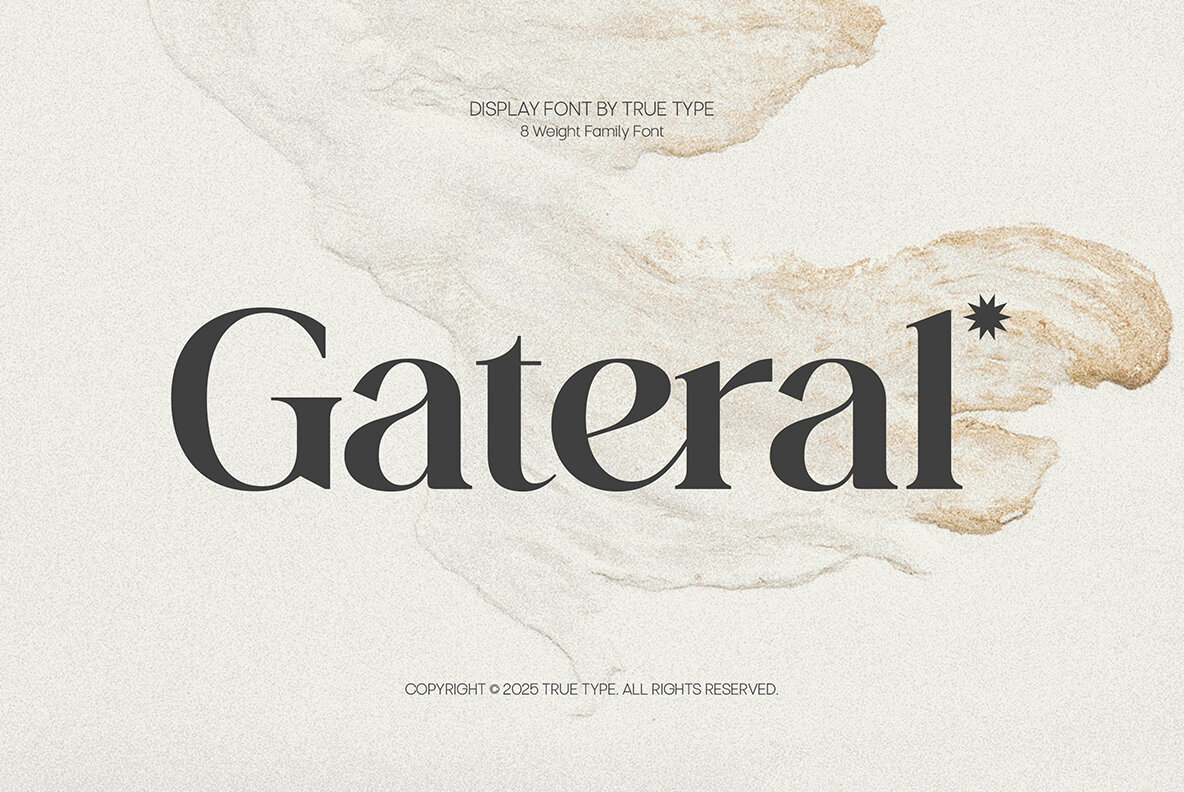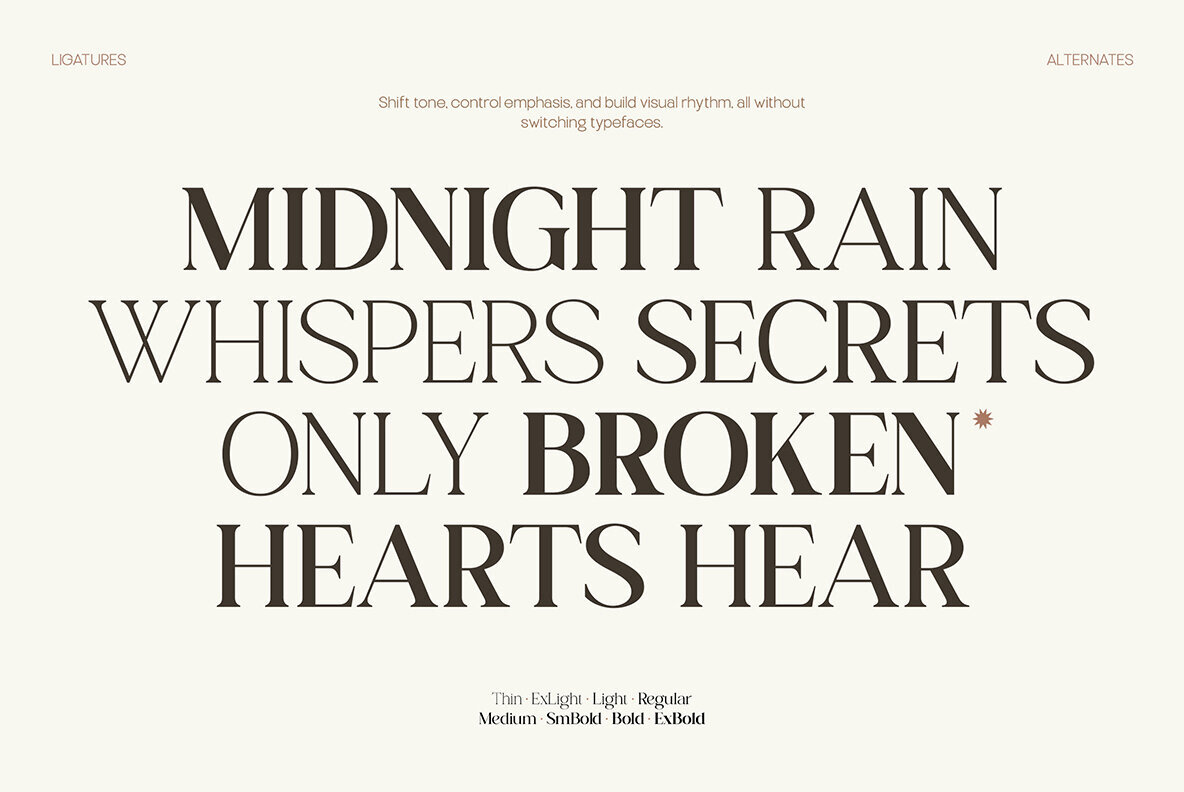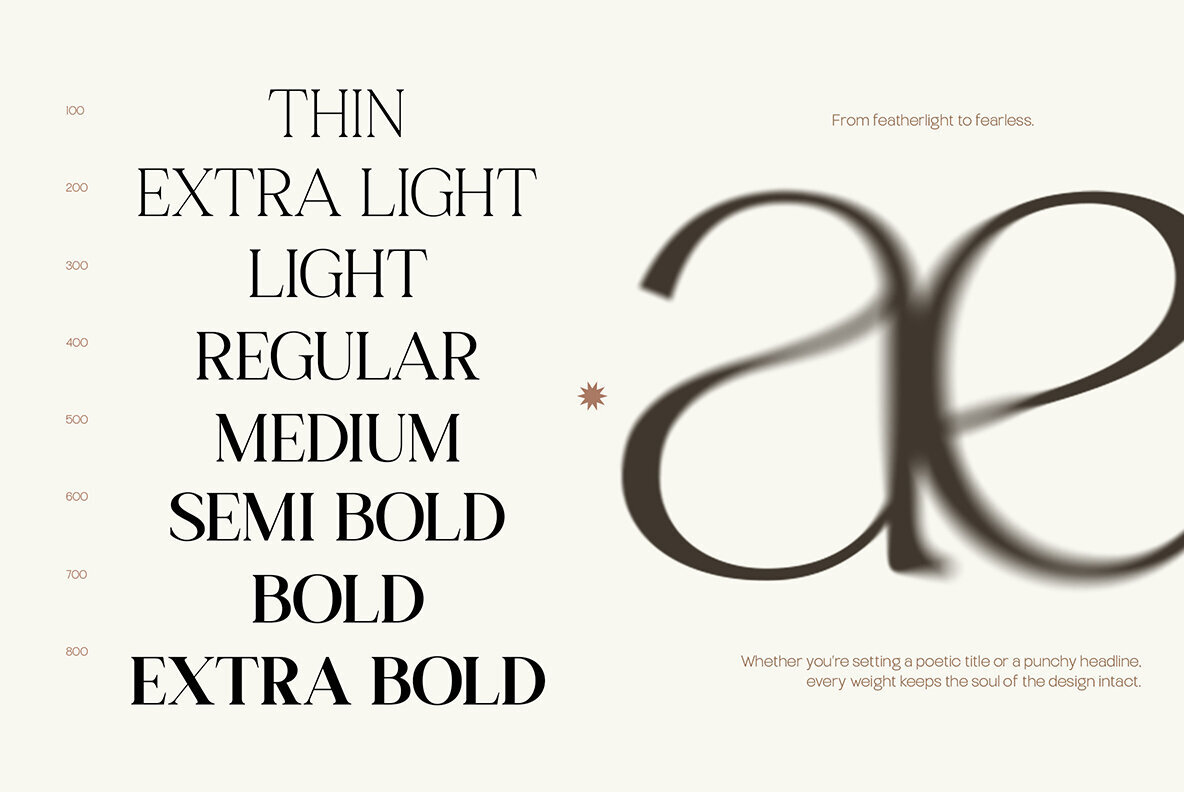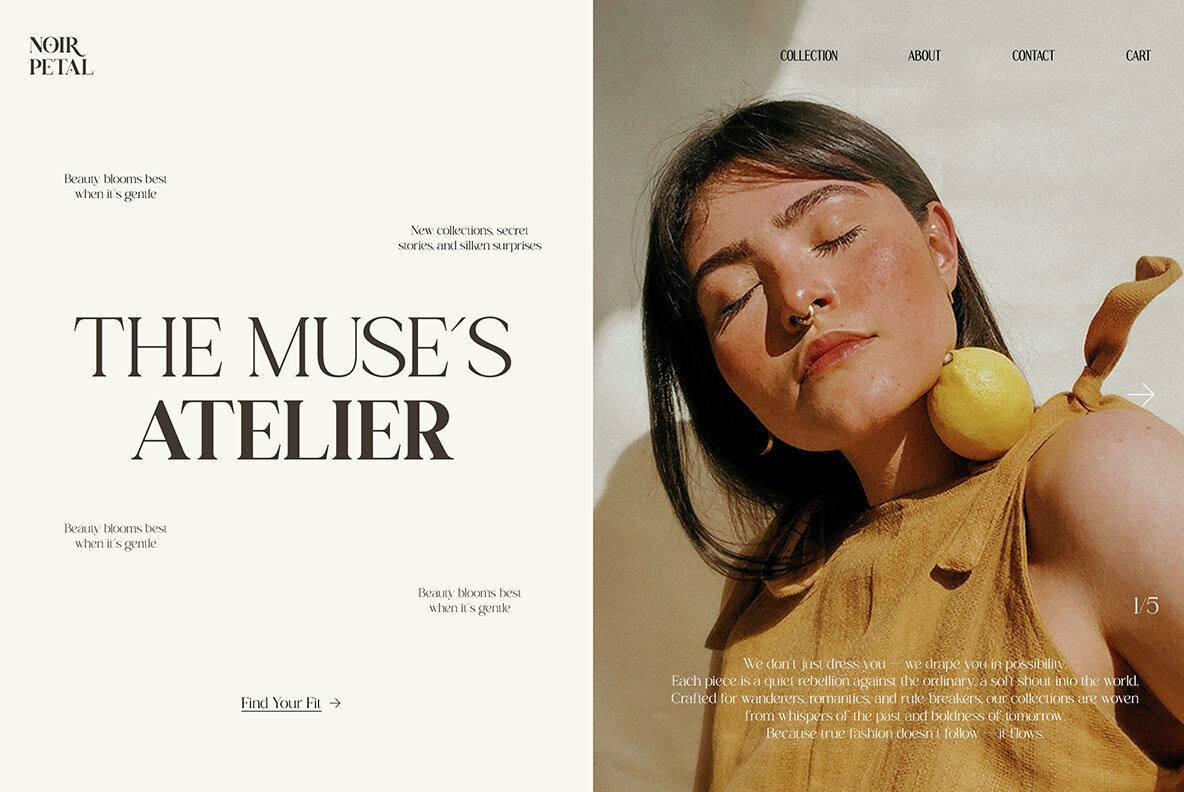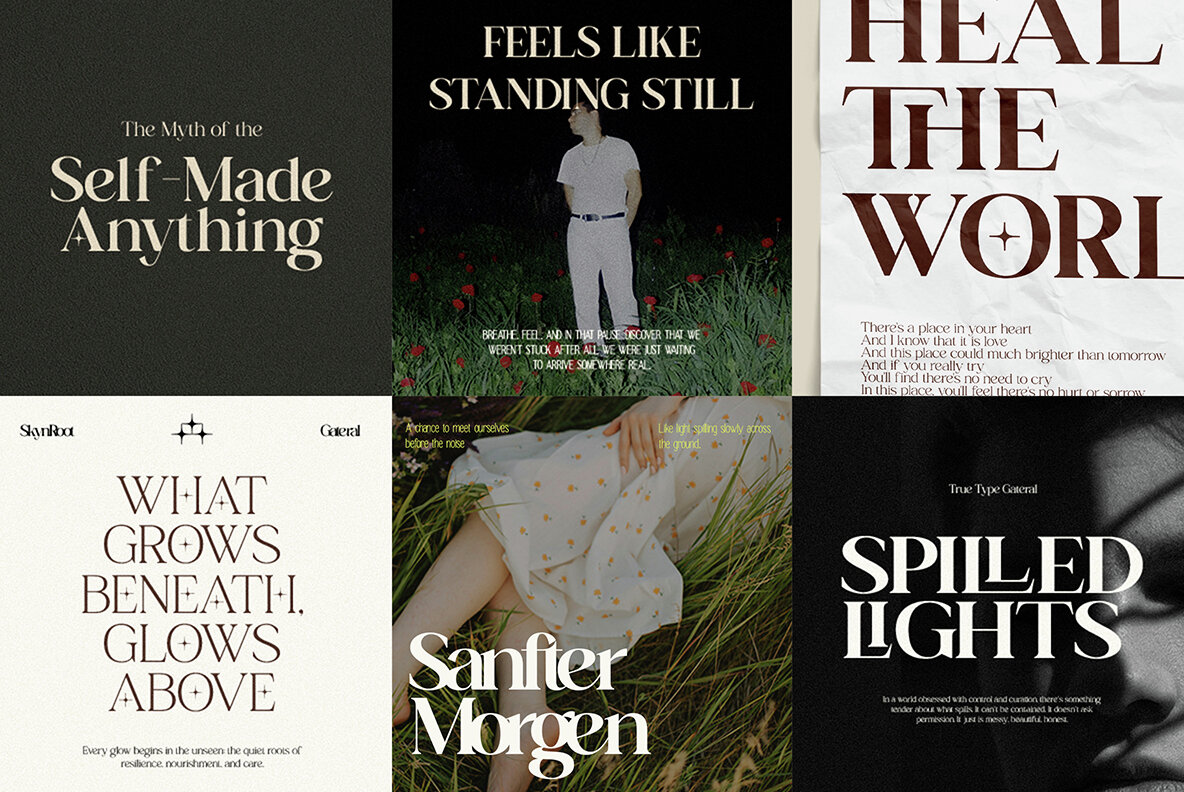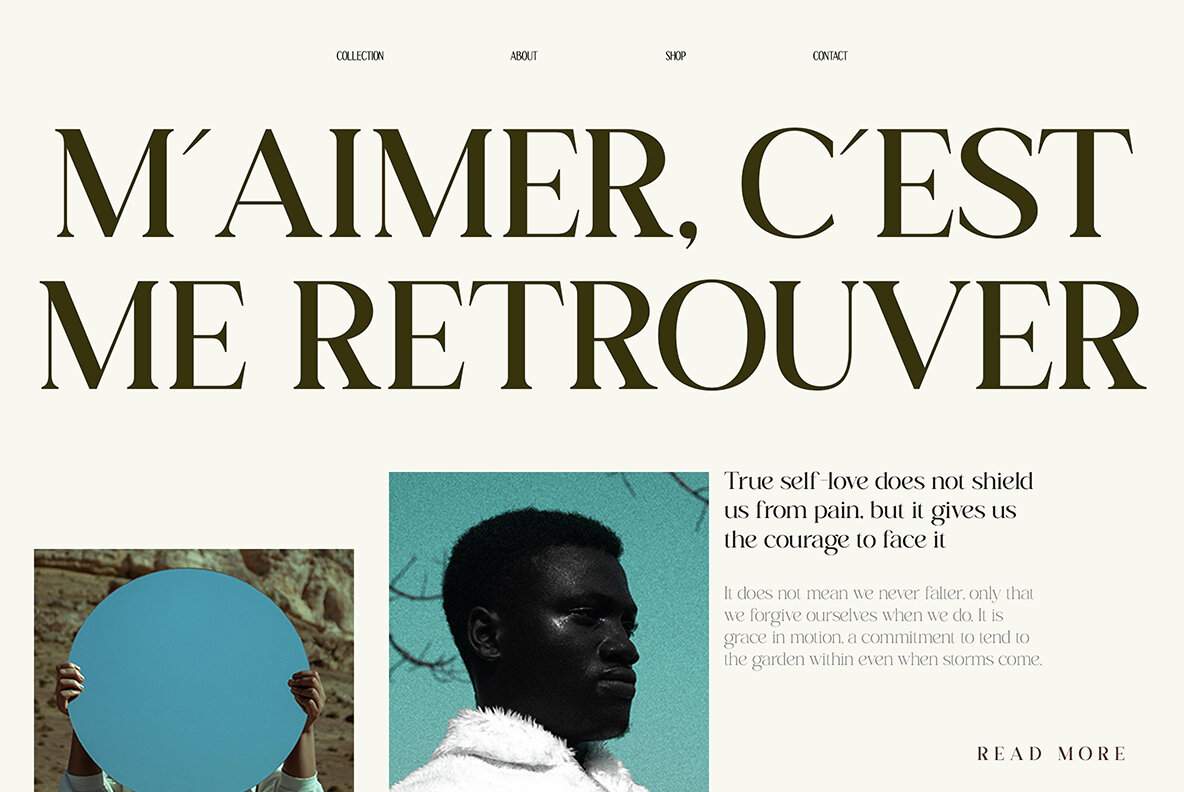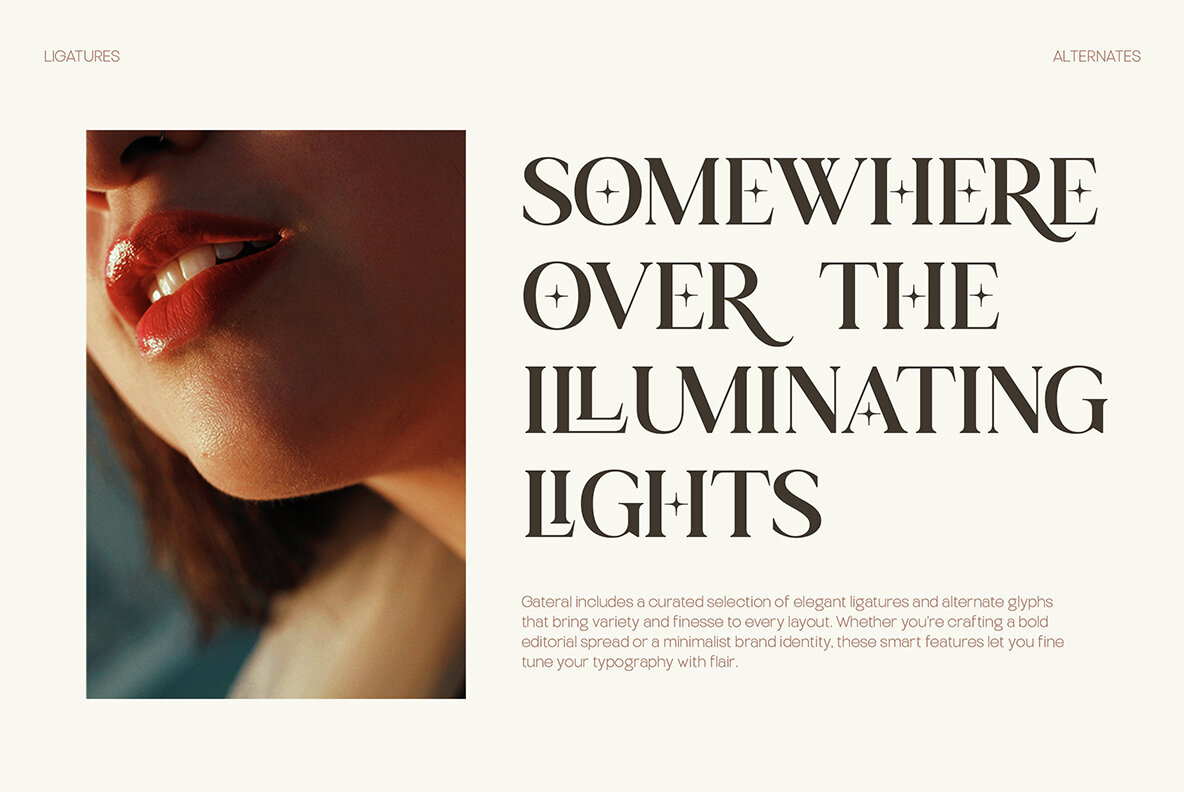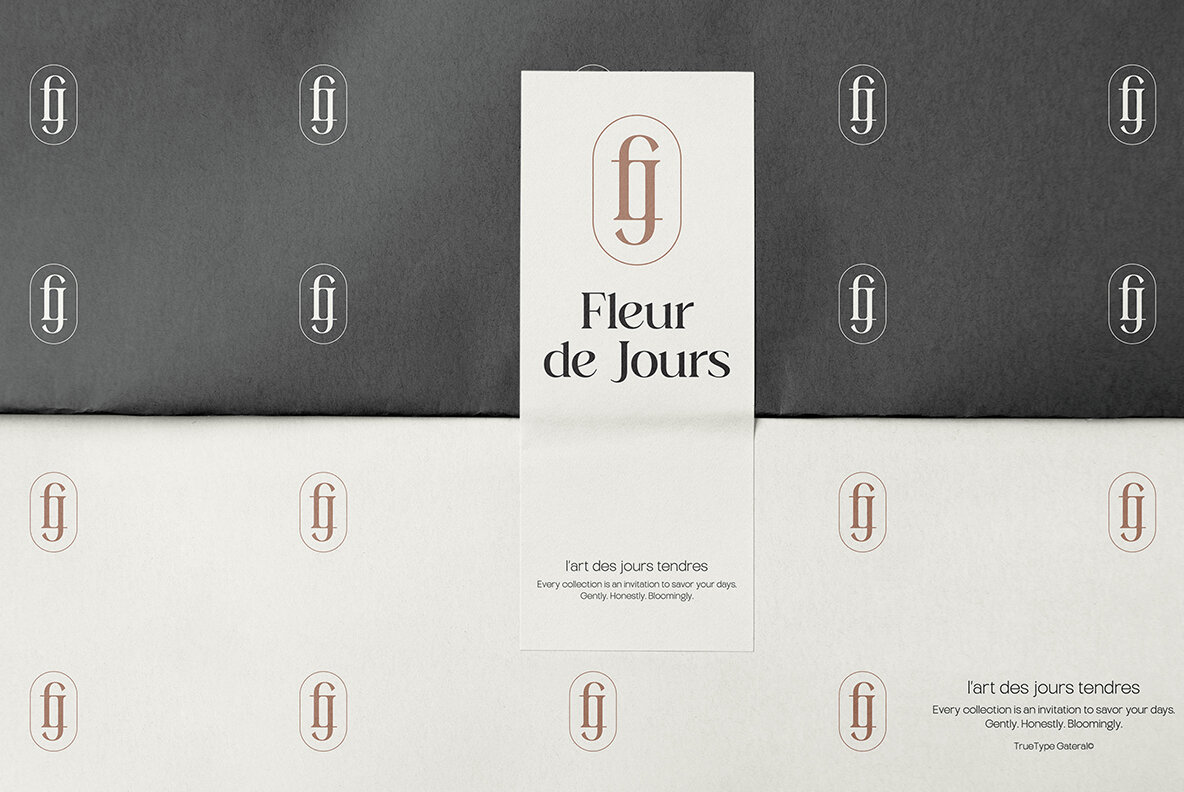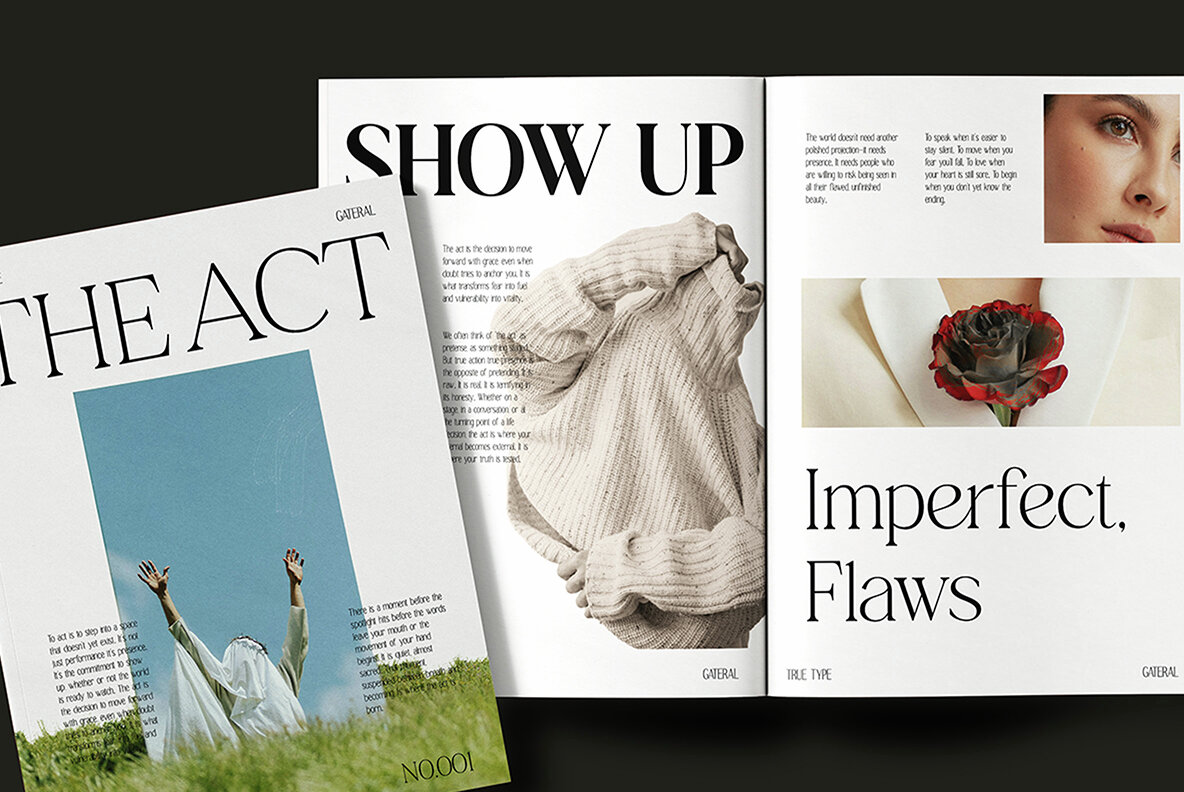
TT Gateral Font
TT Gateral is a serif typeface exquisitely crafted to embody clarity, balance, and subtle elegance. Its clean structure and gentle contrast render it adaptable for diverse applications, from branding and editorial design to packaging and digital content. Designed for readability across various sizes, TT Gateral exudes a professional tone that remains approachable. This serif typeface presents a confident yet inviting personality, ideal for thoughtful design projects. TT Gateral gives designers a flexible tool to achieve calm, clear, and well-structured visual communication, making it a cherished asset in digital design endeavors.TT Gateral: Elegance in Every Curve